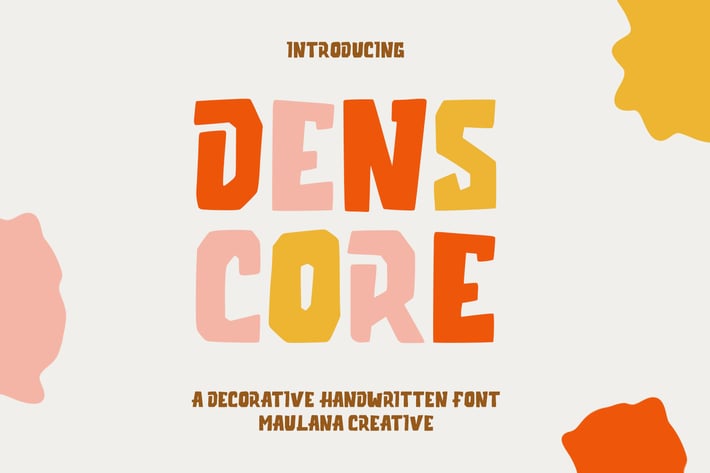
Denscore Decorative Handwritten Font
Denscore is a decorative handwritten display font. With bold low contrast stroke, fun character with a bit of ligatures and alternates. To give you an extra creative work. Denscore font support multilingual more than 100+ language. This font is good for logo design, Social media, Movie Titles, Books Titles, a short text even a long text letter and good for your secondary text font with sans or serif. Make a stunning work with Denscore font.